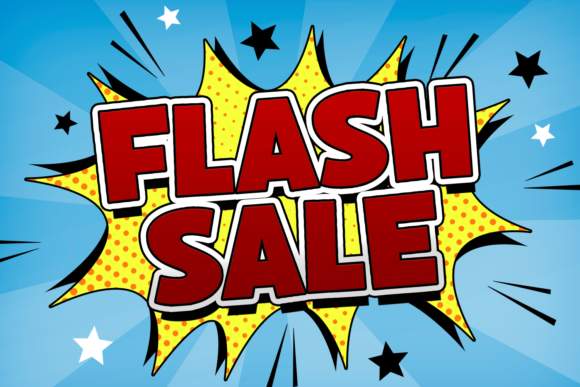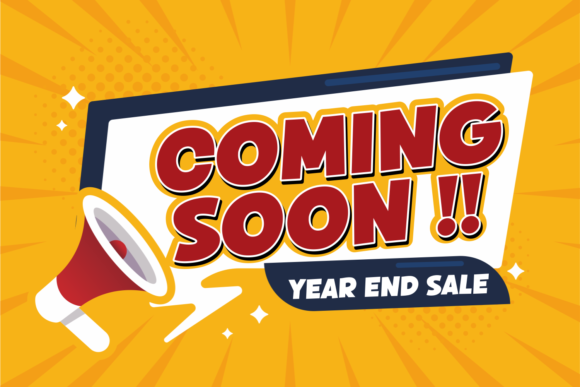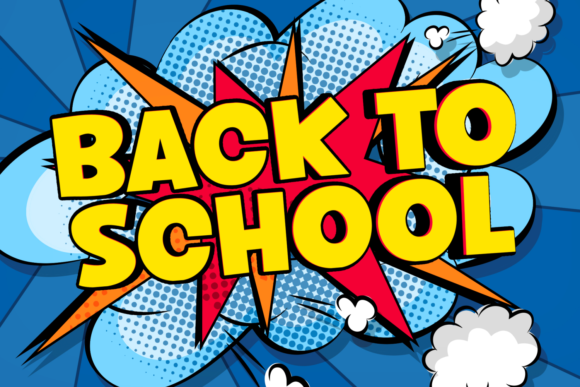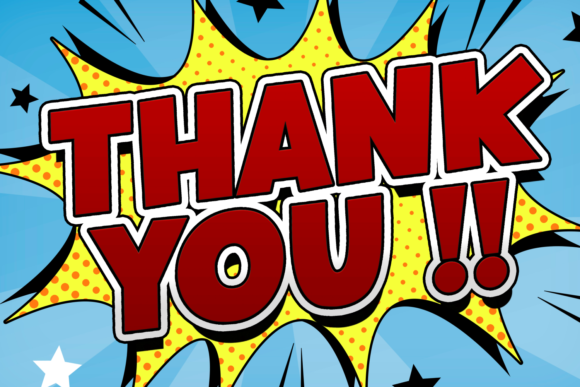
Fancy Comic Font: Add a Jolly Touch to Your Designs
Are you looking for a font that can add a playful and charming touch to your designs? Look no further than the Fancy Comic Font. This fun and thick lettered display font is perfect for delivering any message with confidence, authenticity, and charm. In this article, we’ll explore the features and benefits of Fancy Comic Font and how you can use it to take your designs to the next level.
What is Fancy Comic Font?
Fancy Comic Font is a display font designed to add a jolly touch to your designs. Its thick and playful lettering makes it perfect for use in cartoons, magazine covers, games, and any other project that requires a fun and youthful vibe. The font is carefully crafted to deliver a sense of confidence, authenticity, and charm, making it ideal for designers who want to create engaging and memorable designs.
Key Features of Fancy Comic Font
So, what makes Fancy Comic Font so special? Here are some of its key features:
- Thick and Playful Lettering: The font features thick and playful lettering that adds a fun and youthful touch to your designs.
- Display Font: Fancy Comic Font is a display font, making it perfect for use in headlines, titles, and other display text.
- Confident and Authentic: The font is designed to deliver a sense of confidence and authenticity, making it perfect for designers who want to create engaging and memorable designs.
- Versatile: Fancy Comic Font can be used in a variety of projects, including cartoons, magazine covers, games, and more.
Benefits of Using Fancy Comic Font
So, why should you use Fancy Comic Font in your designs? Here are some of the benefits:
- Adds a Jolly Touch: The font adds a fun and playful touch to your designs, making them more engaging and memorable.
- Increases Readability: The thick and playful lettering makes the font highly readable, even at small sizes.
- Perfect for Display Text: The font is designed for use in display text, making it perfect for headlines, titles, and other display text.
How to Use Fancy Comic Font
Using Fancy Comic Font is easy. Here are some tips:
- Use it for Display Text: Use Fancy Comic Font for display text, such as headlines, titles, and other display text.
- Pair it with Other Fonts: Pair Fancy Comic Font with other fonts to create a unique and interesting design.
- Use it for Cartoons and Games: Use Fancy Comic Font for cartoons, games, and other projects that require a fun and youthful vibe.
Fancy Comic Font is a fun and thick lettered display font that’s perfect for adding a jolly touch to your designs. Its confident and authentic style makes it ideal for designers who want to create engaging and memorable designs. With its versatility and ease of use, Fancy Comic Font is a great addition to any designer’s toolkit. So why not give it a try and see how it can take your designs to the next level?
- What is Fancy Comic Font?: Fancy Comic Font is a fun and thick lettered display font designed to add a jolly touch to your designs.
- What is Fancy Comic Font used for?: Fancy Comic Font is perfect for use in cartoons, magazine covers, games, and any other project that requires a fun and youthful vibe.